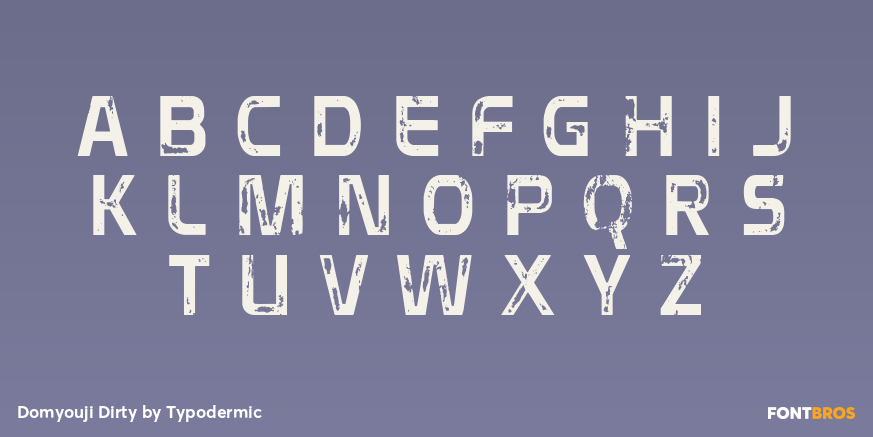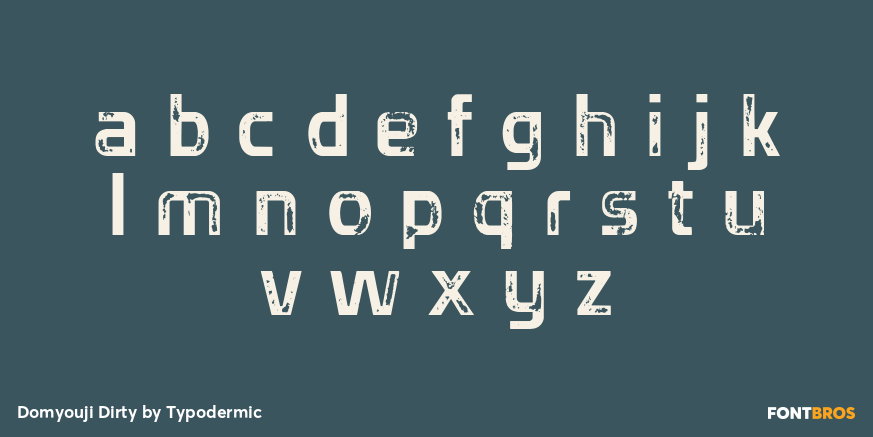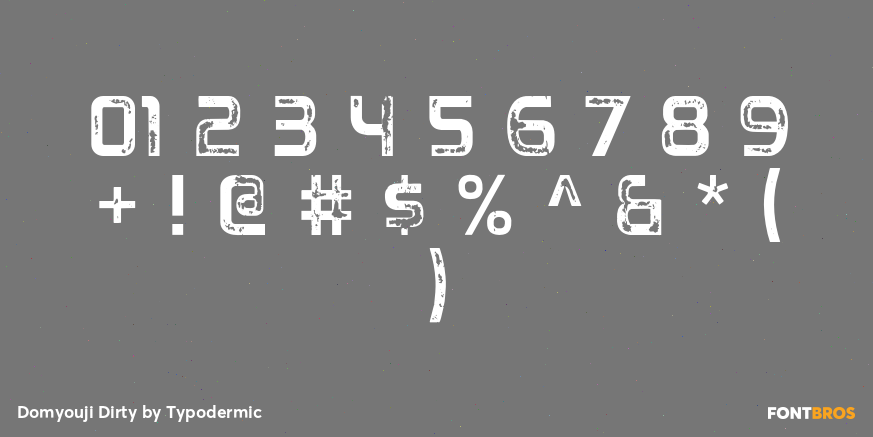
Domyouji Dirty
Buy NowDomyouji Dirty carries the family’s squared technical alphabet onto worn, abraded, and neglected surfaces. The underlying equipment-label structure remains recognizable, but its degraded edges make the same fictional organization feel older, damaged, or exposed to hard use rather than replaced by an unrelated distressed font.
Use Dirty for abandoned space-station signage, battered cargo modules, industrial-horror environments, rover markings, maintenance-bay labels, survival-game props, and virtual-production scenery. Pair it with clean Domyouji on displays and factory-applied graphics so the environment can show one identity at different stages of wear.